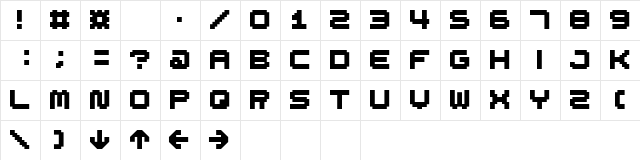
spdr02 Regular
Design Context for spdr02 Typeface
spdr02 takes a measured approach to typography — its balanced proportions and neutral character make it a reliable workhorse for both digital and print work.